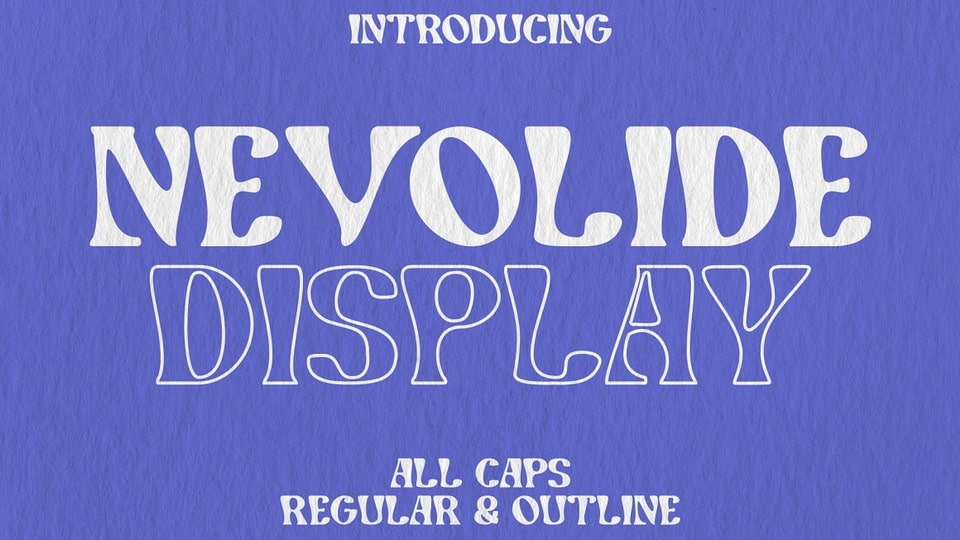
Download Nevolide font, a modern display typeface. Nevolide has an elegant and playful look that can be used for logos, branding, posters, social media posts, and so much more.